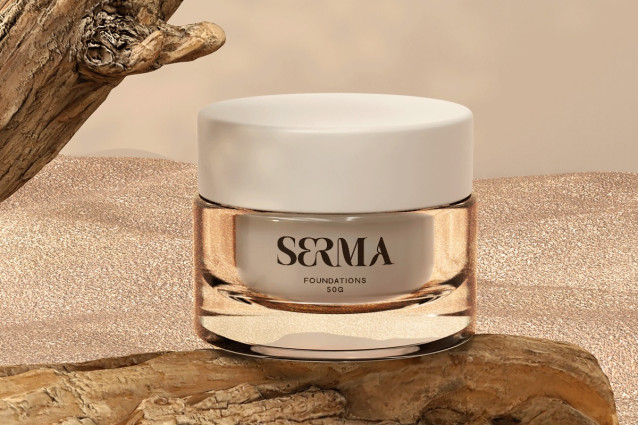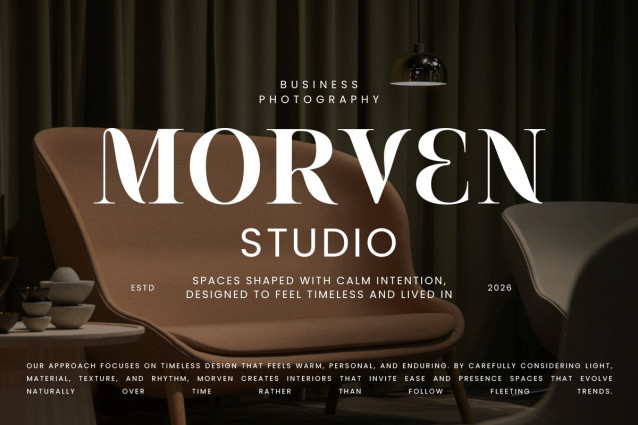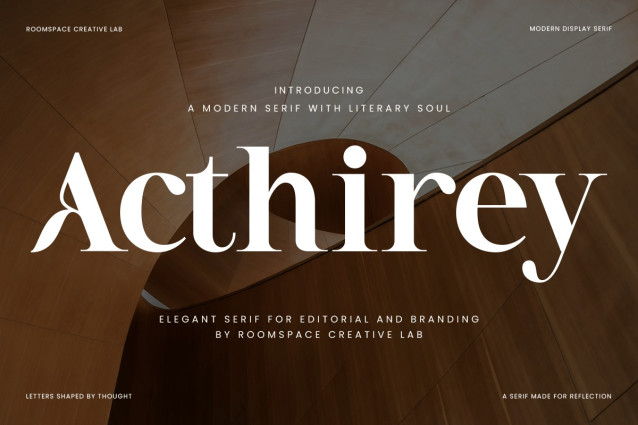
Acthirey Font
Acthirey Font is a modern display serif font designed with a literary soul and editorial precision. Its elegant proportions, expressive curves, and confident contrast make it ideal for high-end branding, magazines, book covers, and refined visual identities. Balancing classic serif influence with contemporary clarity, Acthirey delivers a timeless aesthetic that feels thoughtful, cultured, and visually strong across both print and digital use.